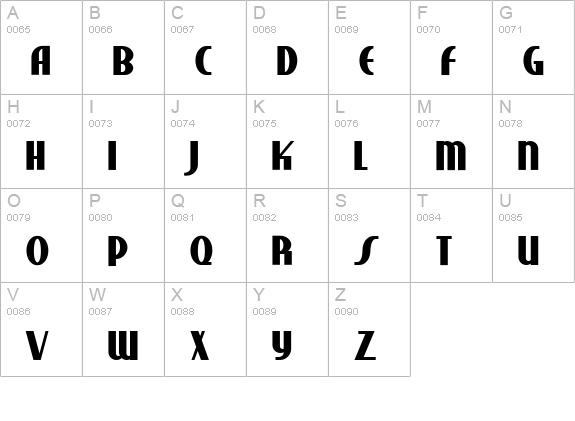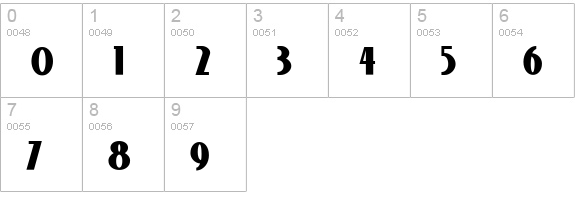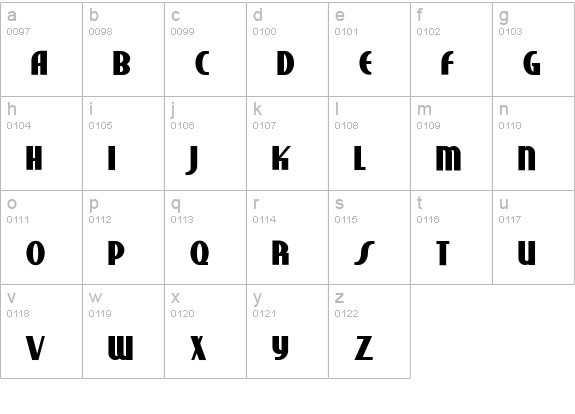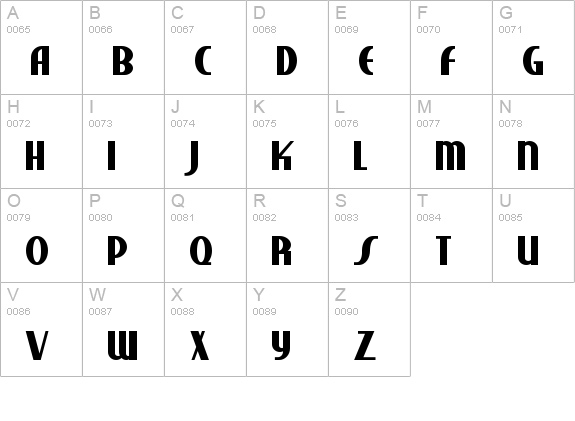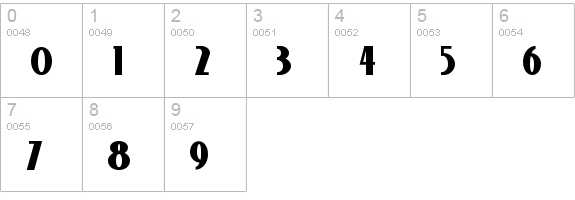
Studebaker NF Bold Font Details
Studebaker NF Bold is a strong, high-contrast variant in the Studebaker typeface family \xE2\x80\x94 well suited to headlines, attention-grabbing titles, and strong calls-to-action.
Studebaker NF Bold font is a stunning display typeface that exudes sophistication and elegance. With its bold and striking letterforms, this font is perfect for making a statement in your design projects. The strong and commanding presence of Studebaker NF Bold font makes it ideal for headlines, posters, logos, and other creative applications. What sets Studebaker NF Bold font apart is not only its timeless design but also the fact that it is available for free download at FontsMarket.com. This means that you can easily access this exceptional font and use it in your projects without any cost. Whether you are a professional designer or an aspiring creator, Studebaker NF Bold font offers a high-quality and versatile option for adding a touch of sophistication to your work. Elevate your designs with the bold and impactful Studebaker NF Bold font today!